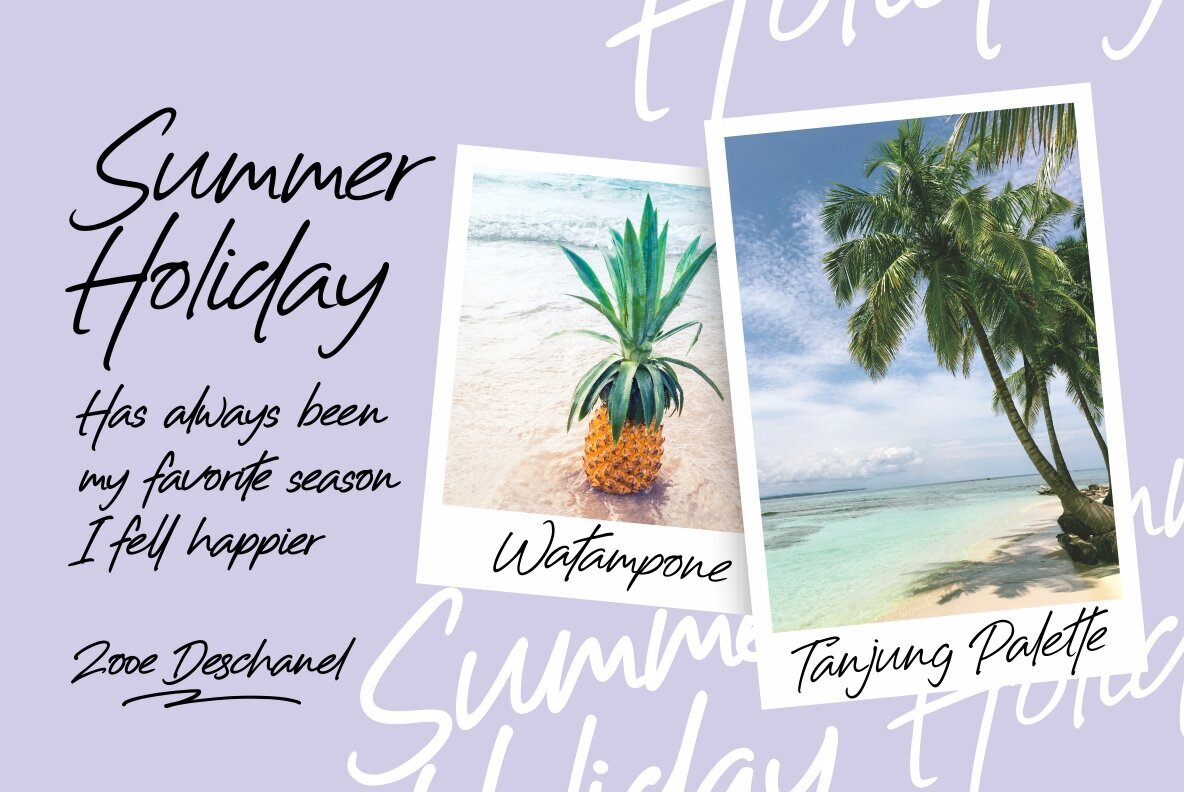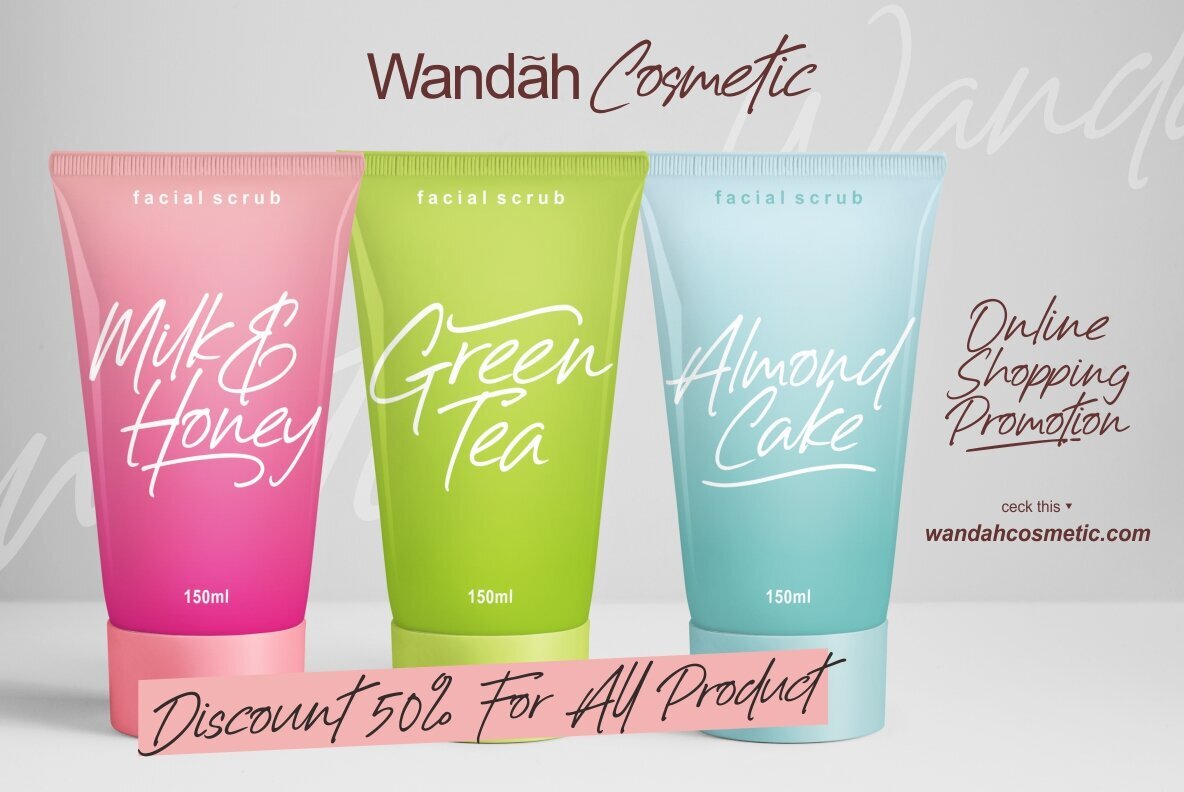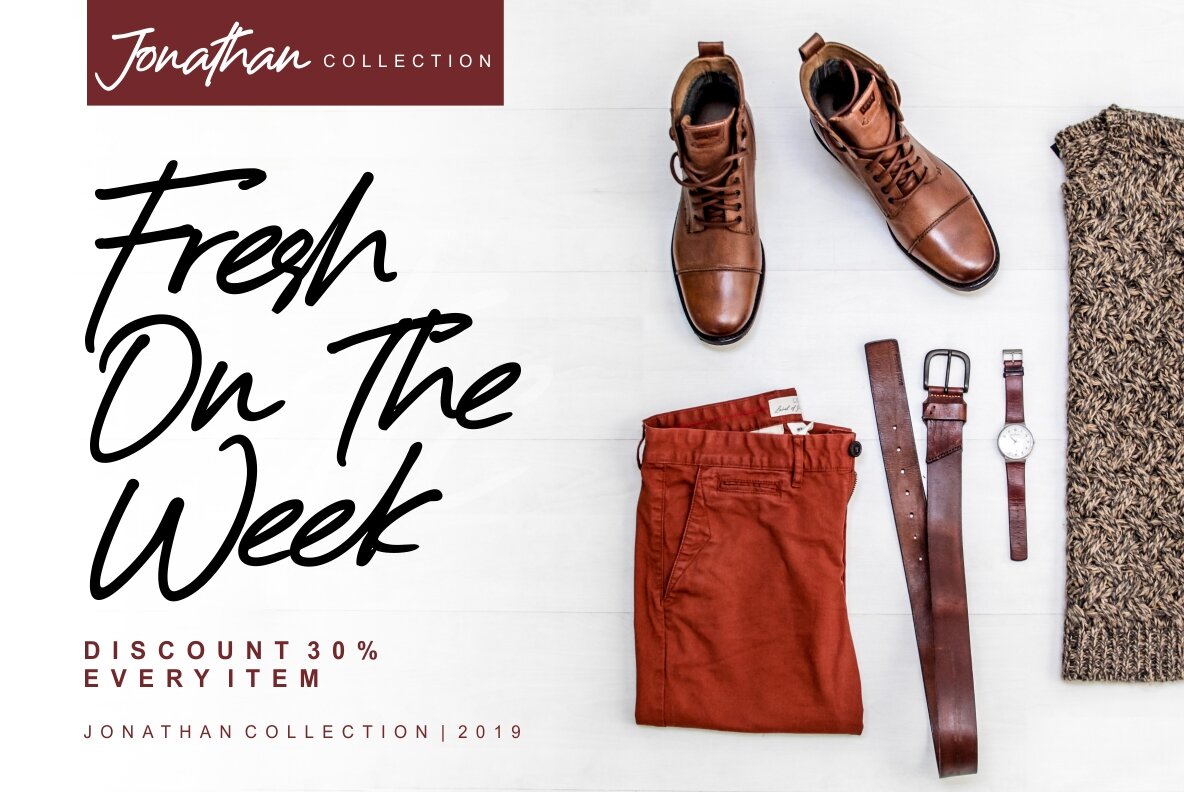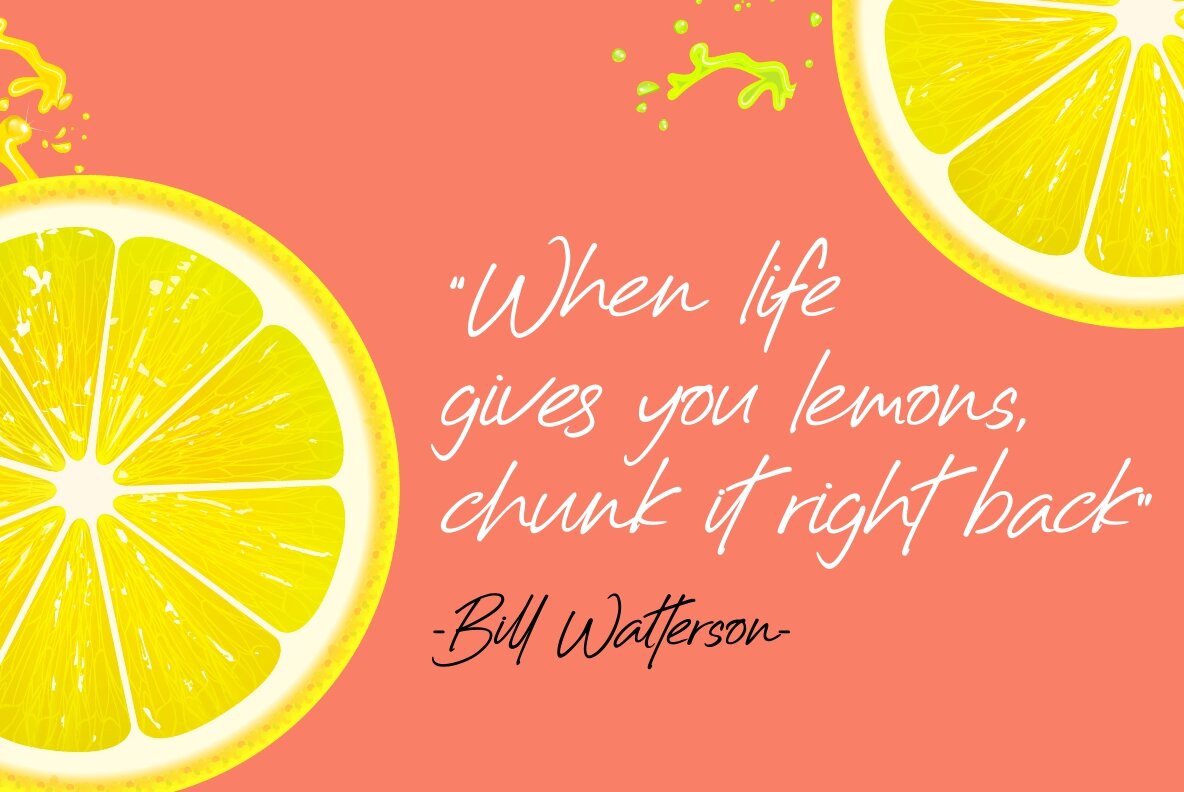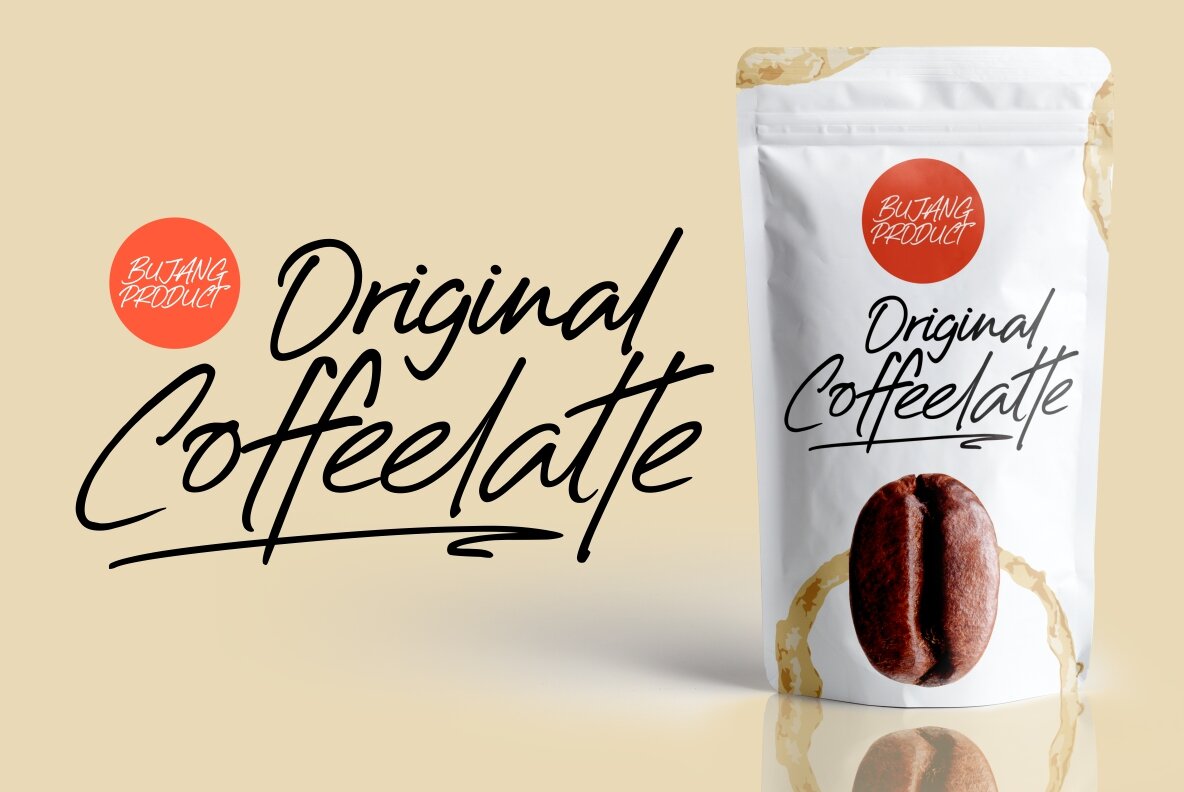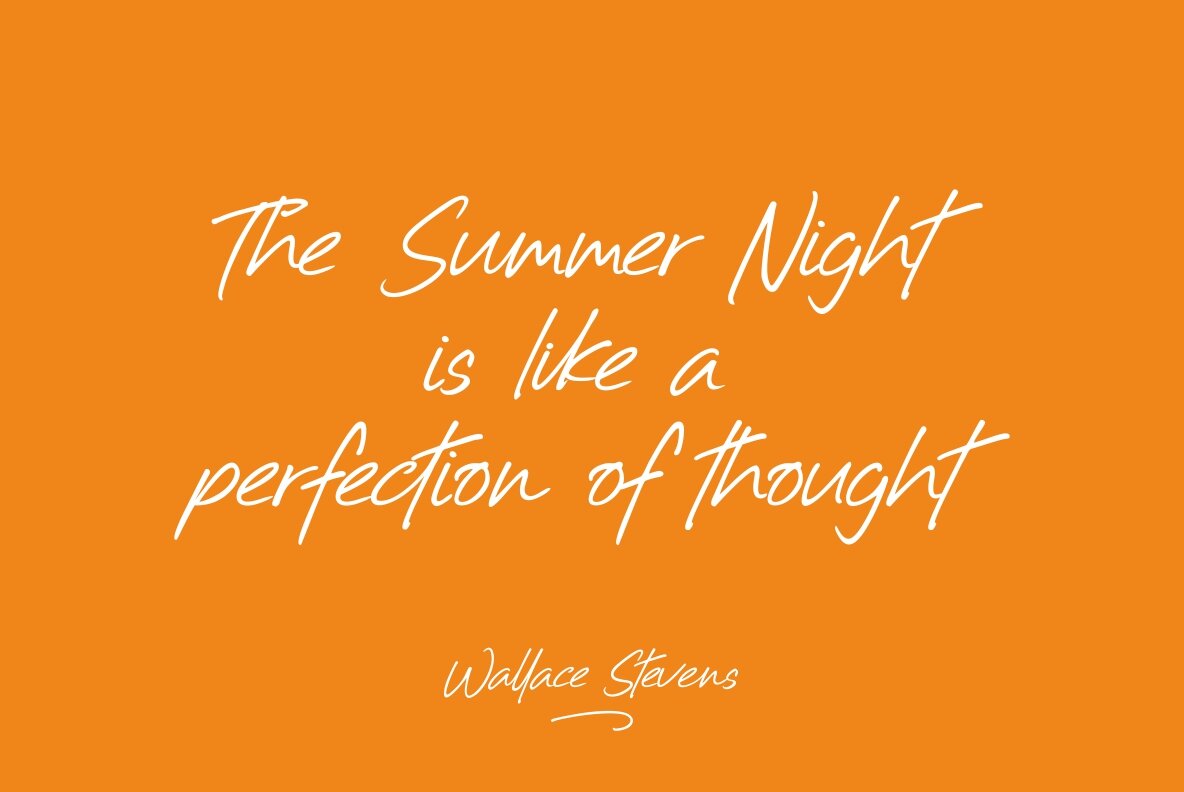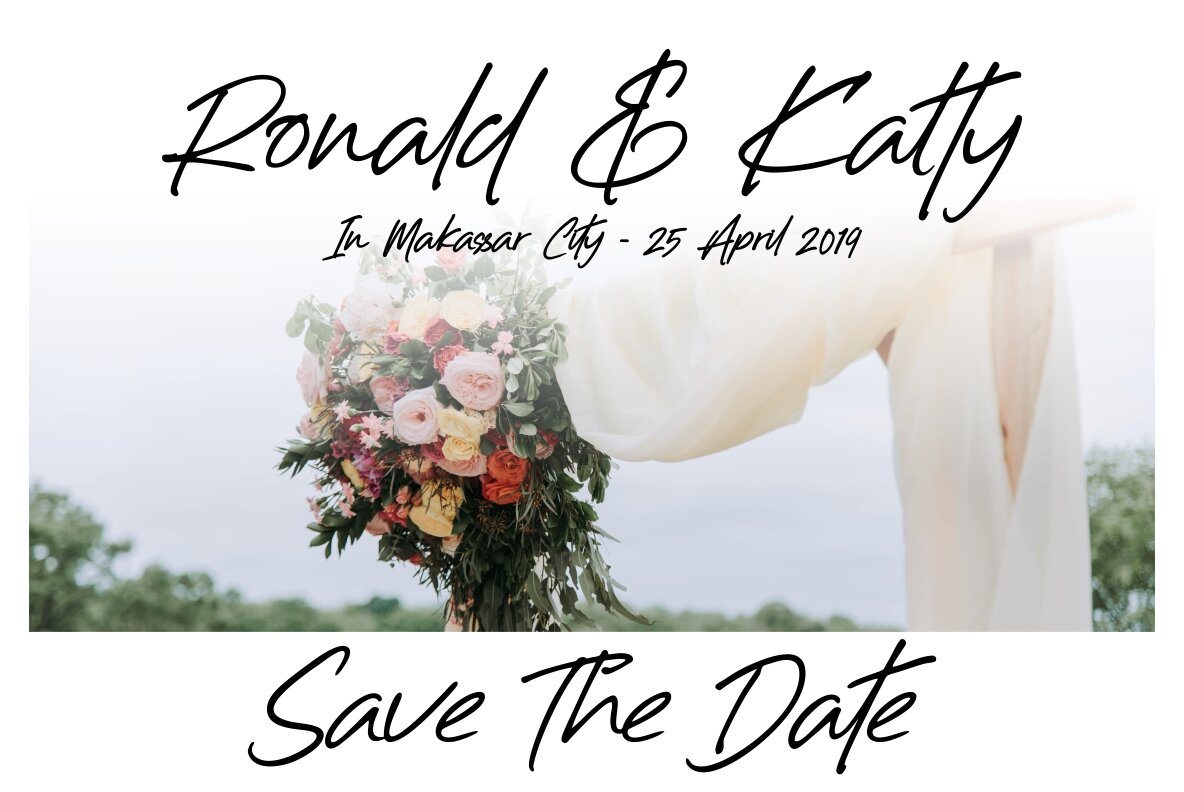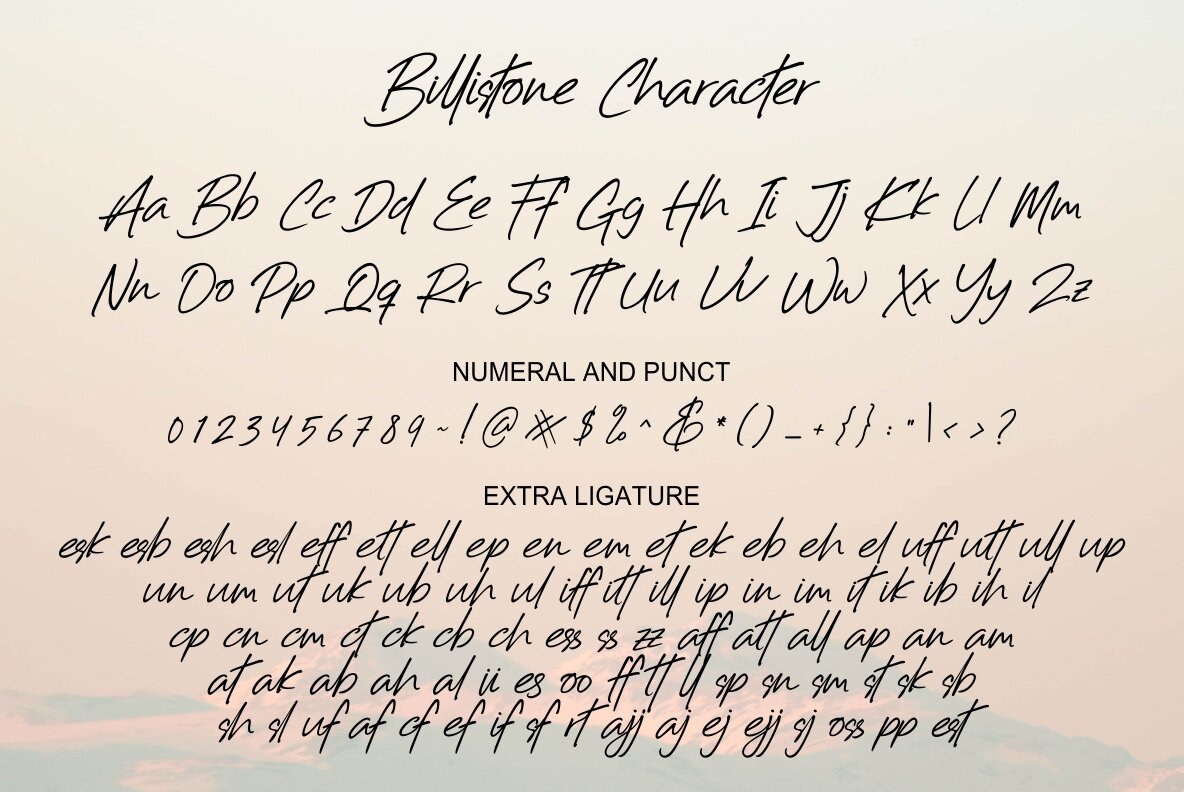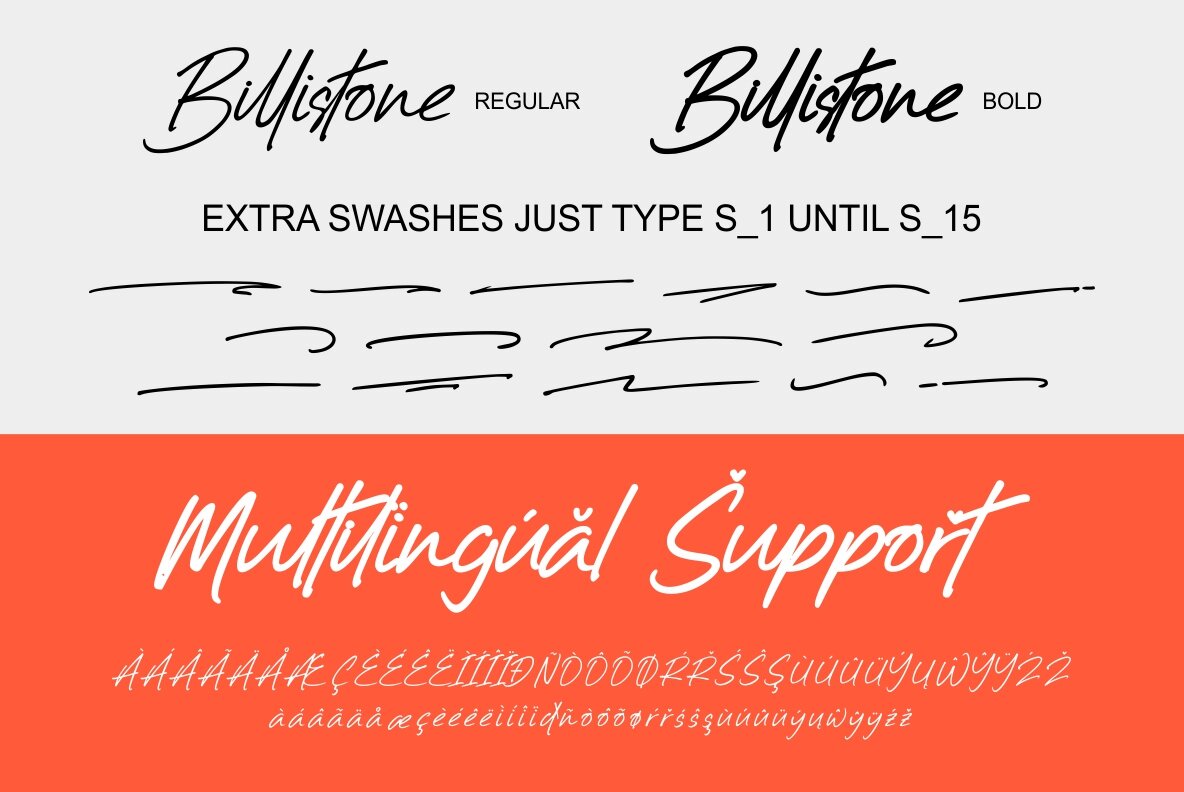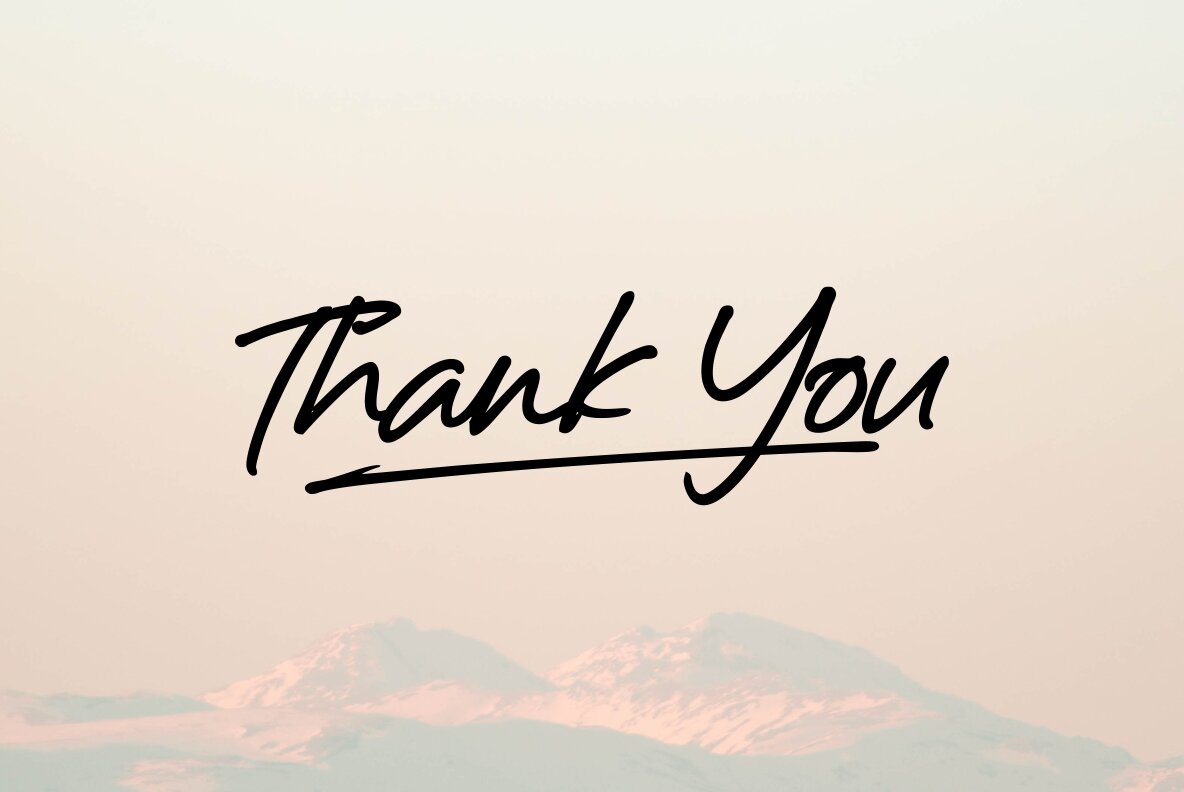
Billistone Font
Billistone by Ergibi Studio offers a distinct handwritten aesthetic, ideal for giving your designs an authentic signature style. Its fluidity and ease of use make it suitable for a range of creative projects—whether you're designing logos, crafting signatures, or creating badges and labels. Its versatility extends to packaging design and blog headlines, seamlessly fitting into any design endeavor. Multilingual Support: Billistone comes equipped with support for multiple languages including Cornish, Danish, Dutch, English, Estonian, Faroese, Filipino, Finnish, French, Galician, German, Icelandic, Indonesian, Irish, Italian, Norwegian Bokmål, Norwegian Nynorsk, Portuguese, Spanish, Swahili, Swedish, and Swiss German.Billistone: A Handwritten Font with Signature Style